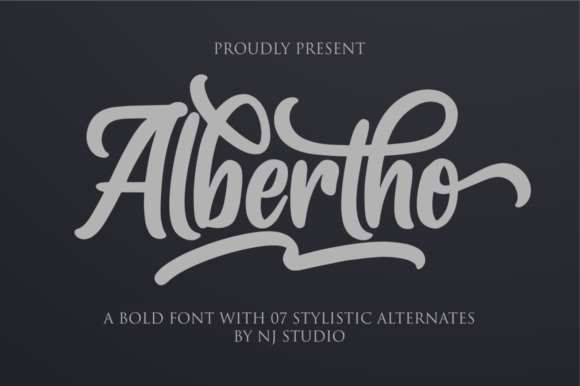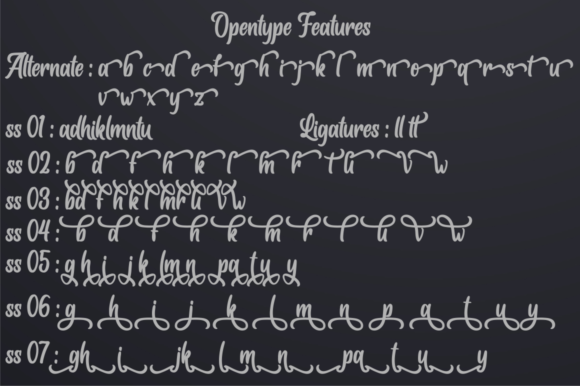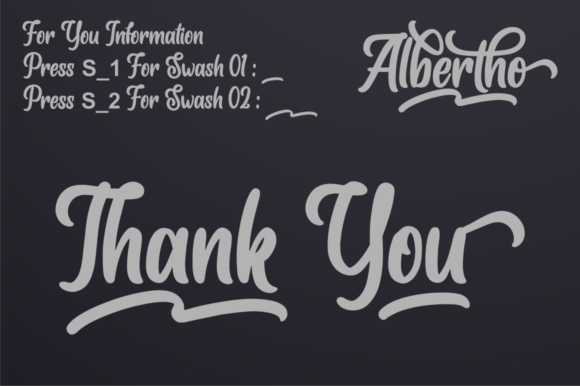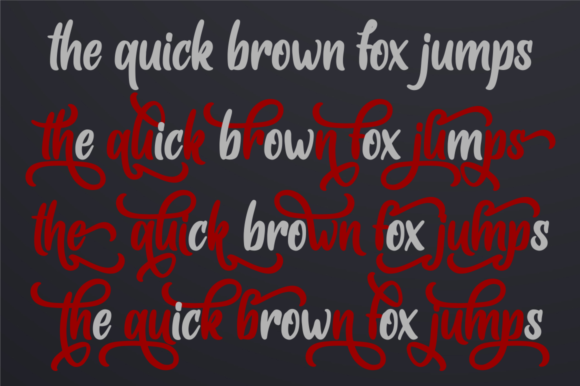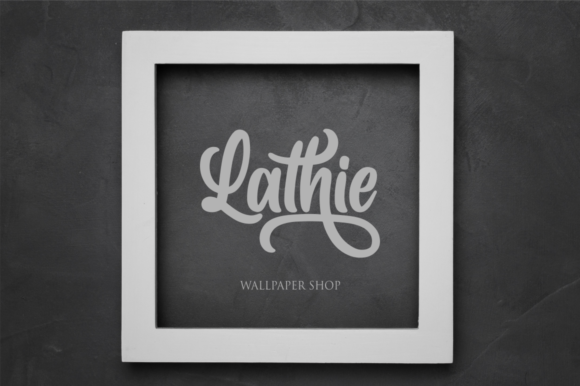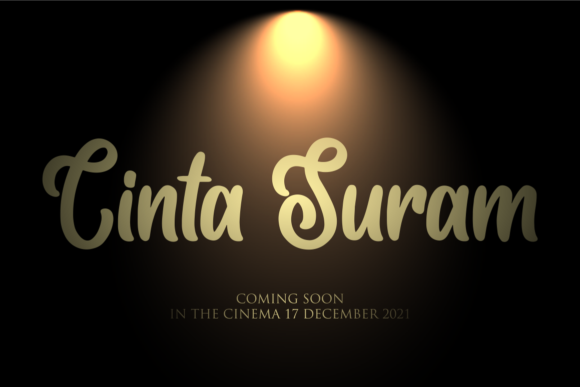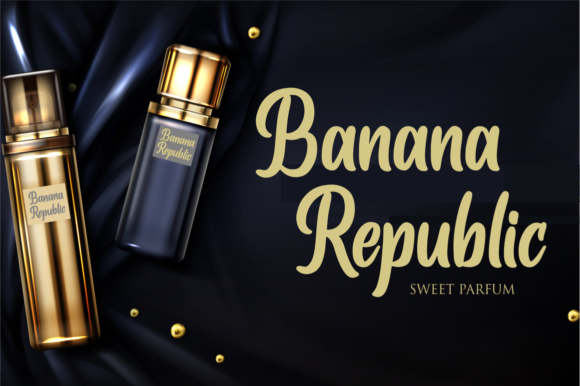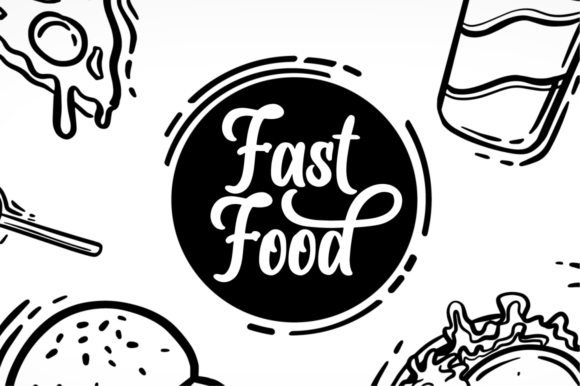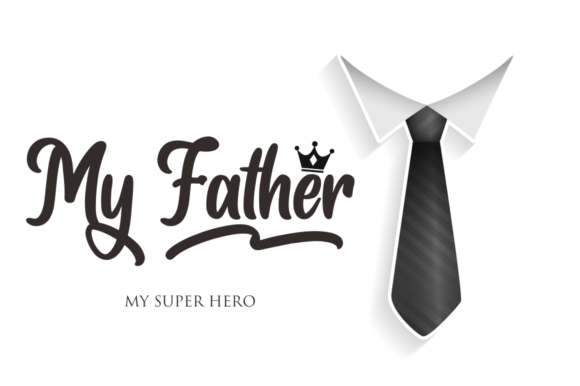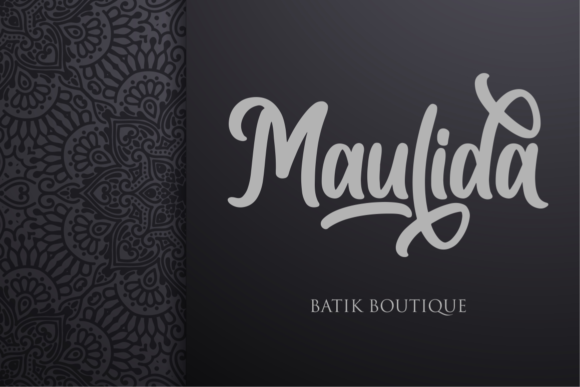
Albertho Font
About Albertho Font
Albertho results out of a stunning pairing of a brush pen and pencil that makes it look incredibly endearing and authentic. Its casual charm makes it appear wonderfully down-to-earth, readable and, ultimately, incredibly versatile. Albertho will look outstanding in any context, whether it’s being used on busy backgrounds or as a standalone headline!